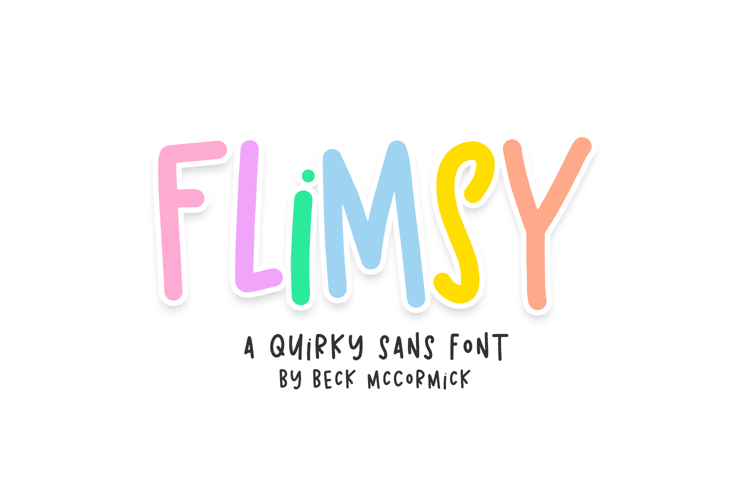
Say hello to Flimsy, an all-caps sans font. Flimsy is cute and quirky.
Flimsy is best for:
- feminine, crafty projects with your Cricut or Silhouette machine, or your SVG design business
- farmhouse decor and crafts
- website design + website accents, blog design
- feminine graphic tee shirt design & other apparel
- full upper + lowercase characters (two caps sets of letters)